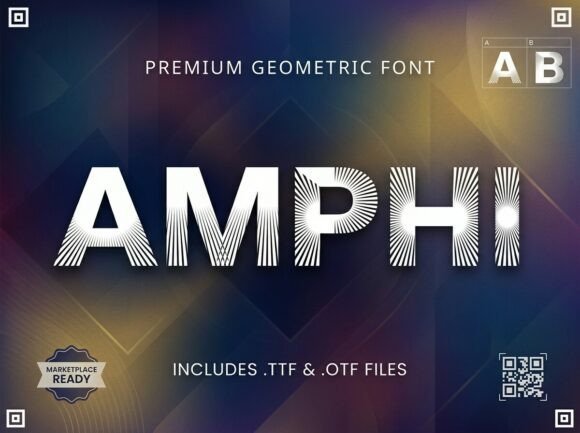
Elevate Your Creative Projects with Amphi Font
Do you remember that moment when you stumbled upon the perfect font for your project? The one that instantly elevates your design and leaves a lasting impression? For many creatives, this is a moment of pure joy and excitement. It’s the spark that ignites their imagination and drives them to push the boundaries of their art.
Introducing Amphi Font, a decorative display font designed to be the centerpiece of any layout. With its distinct artistic elements and strong character, it’s perfect for creators who want to break away from the ordinary and add a touch of sophistication to their work. Whether you’re working on a bold headline, creative branding, or packaging, Amphi Font delivers a high-end, professional aesthetic without compromising on personality.
Amphi Font Key Features
- Character Count: The font family includes over 1000 glyphs, covering a wide range of languages and characters.
- Font Size and Resolution: Amphi Font is designed for use at medium to large font sizes (12-48 points) and high resolutions (300 DPI and above).
- Unique Characteristics: Amphi Font features a unique blend of modern and classical design elements, making it suitable for a wide range of applications, from corporate branding to publishing and advertising.
- Language Support: The font family supports multiple languages, including Latin, Cyrillic, and Greek alphabets.
- Font Width and Style: Amphi Font is available in various widths (Condensed, Regular, and Expanded) and styles (Italic, Bold, and Bold Italic), offering flexibility and versatility in typography.
Amphi Font Review
Amphi Font is an interesting typeface that offers a unique blend of modern and classic elements. One of the things that works well is its versatility ✨. It’s suitable for a wide range of design projects, from corporate communications to advertising materials. The font’s clean lines and minimal ornamentation make it an excellent choice for creating visually appealing and professional-looking content.
Another advantage of Amphi Font is its extensive character set ✨. It includes a wide range of languages, making it a great option for designers working on international projects. Additionally, the font’s scalable nature ensures that it looks great at various resolutions and sizes.
While Amphi Font has many strengths, it also has some limitations ⚠️. One of the main drawbacks is its relatively limited availability in some operating systems. Designers may need to rely on font embedding or substitute fonts to ensure that their designs display correctly on all devices.
In conclusion, Amphi Font is a solid choice for designers looking for a versatile and professional-looking typeface. While it may have some limitations, its strengths make it a worthwhile investment for many design projects. With proper use and planning, Amphi Font can help designers create stunning and effective visual communications.
- Wide range of languages supported
- Scalable and resolution-independent
- Modern and classic design elements
- Excellent choice for corporate communications and advertising materials
- May require font embedding or substitution for optimal display
Tips for Getting the Most Out of Amphi Font
Experiment with different font sizes, colors, and styles to achieve the desired look. Use Amphi Font in combination with other design elements, such as graphics and images, to create visually appealing designs.
Amphi Font is suitable for a variety of design projects, including:
- Marketing materials, such as brochures and flyers
- Website design and content creation
- Printed materials, such as business cards and posters
Alternatives to Amphi Font
Poppins Font
Poppins Font is a modern sans-serif typeface designed by Indian Type Foundry. It is highly legible and suitable for digital interfaces, making it a great choice for web and mobile applications. When to use: For digital interfaces, web applications, and mobile apps where a clean and modern look is desired.
Compared to Amphi Font, Poppins Font is more modern and has a more extensive character set. It also has a more open and airy feel, making it suitable for digital interfaces where readability is crucial.